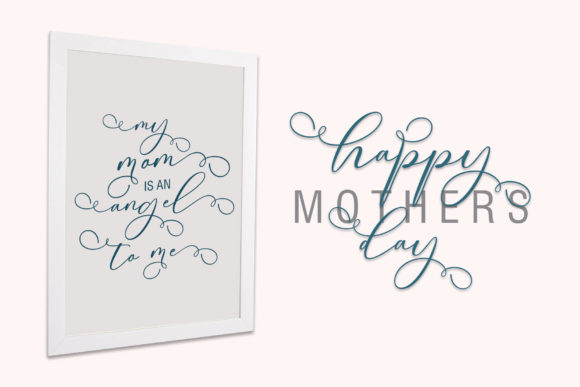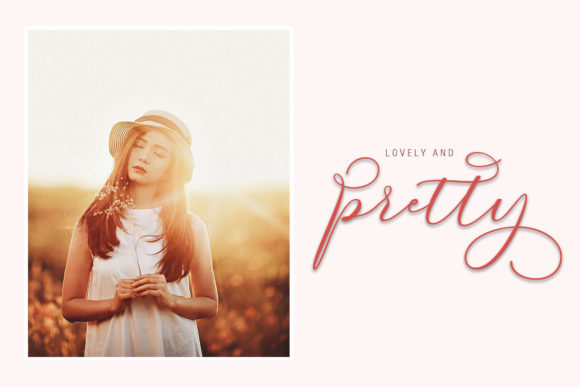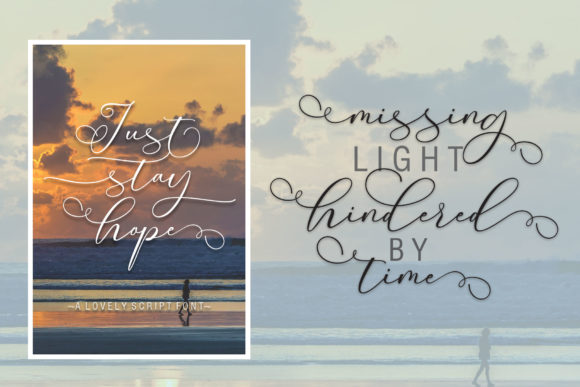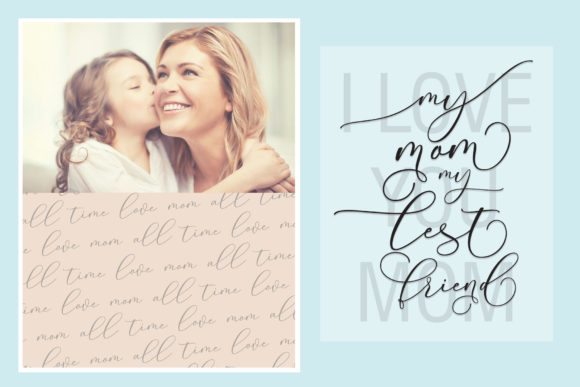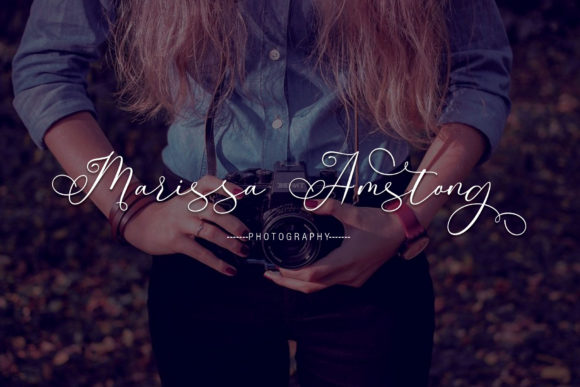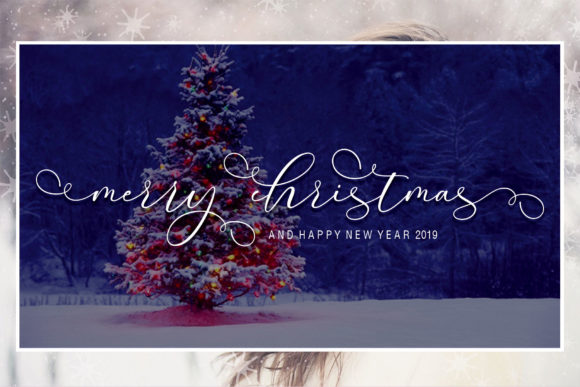
Introduction to Love Fieldfare Font
Have you ever been working on a creative project, pouring your heart and soul into every detail, only to realize that the right font can make all the difference? I know I have. There’s something magical about finding the perfect typography that elevates your design from ordinary to extraordinary. For me, that font is the Love Fieldfare Font.
With its elegant feel and luxurious vibe, the Love Fieldfare Font is the perfect addition to any design project. Whether you’re creating a logo, branding, wedding designs, social media posts, or advertising, this font is sure to impress. And the best part? It’s a high-quality design resource that’s free to download, making it accessible to designers of all levels.
As a valuable resource for designers, the Love Fieldfare Font offers a transparent background, allowing you to easily customize and integrate it into your project. Its versatility makes it an ideal choice for a wide range of creative endeavors, from product designs to social media posts.
Key Features of Love Fieldfare Font
- High-quality design resource with a unique, creative touch, perfect for various projects.
- Designed for use in creative projects, including digital art, graphic design, and publishing.
- Unique, hand-drawn style that sets it apart from other fonts, adding a personal touch to any design.
Honest Review: Love Fieldfare Font
As a designer, I’m always on the lookout for unique and high-quality design resources to elevate my creative projects. The Love Fieldfare Font caught my eye, and I was excited to put it to the test.
Here’s what I like about it: ✨ The Love Fieldfare Font is a beautiful, hand-drawn script font that’s perfect for adding a touch of whimsy to your designs. ✨ It comes with a transparent background, making it easy to customize and pair with other design elements. ✨ The font is also available for free download, which is a major bonus for designers on a budget.
- Unique, hand-drawn design
However, there are a few limitations to consider: ⚠️ The font may not be suitable for body text, as it’s more decorative in nature. ⚠️ It may also be challenging to read in certain font sizes or contexts.
Overall, I’m impressed with the Love Fieldfare Font. It’s a great addition to any designer’s toolkit, and I can see it being a hit for creative projects that require a touch of elegance and sophistication.
Tips for Getting the Most Out of Love Fieldfare Font
To maximize the impact of the Love Fieldfare Font, use it in creative projects that require a high-quality, transparent background. Experiment with different font sizes and styles to achieve a unique look.
The Love Fieldfare Font is ideal for:
- Designing invitations and greeting cards
- Creating social media graphics and posts
- Developing branding materials and logos
Compared to Love Fieldfare Font, Montserrat is more modern and lacks the ornate feel of the latter. Use Montserrat when you need a sleek and contemporary look for your design project.
Great Vibes is a beautiful script font perfect for creative projects that require a touch of elegance and sophistication. It’s a free download and suitable for design resources like wedding invitations, branding materials, and more. Great Vibes features a transparent background and a flowing design that adds a personal touch to any project.
Compared to Love Fieldfare Font, Great Vibes is more elegant and less ornate. Use Great Vibes when you need a font that conveys refinement and sophistication in your design project.